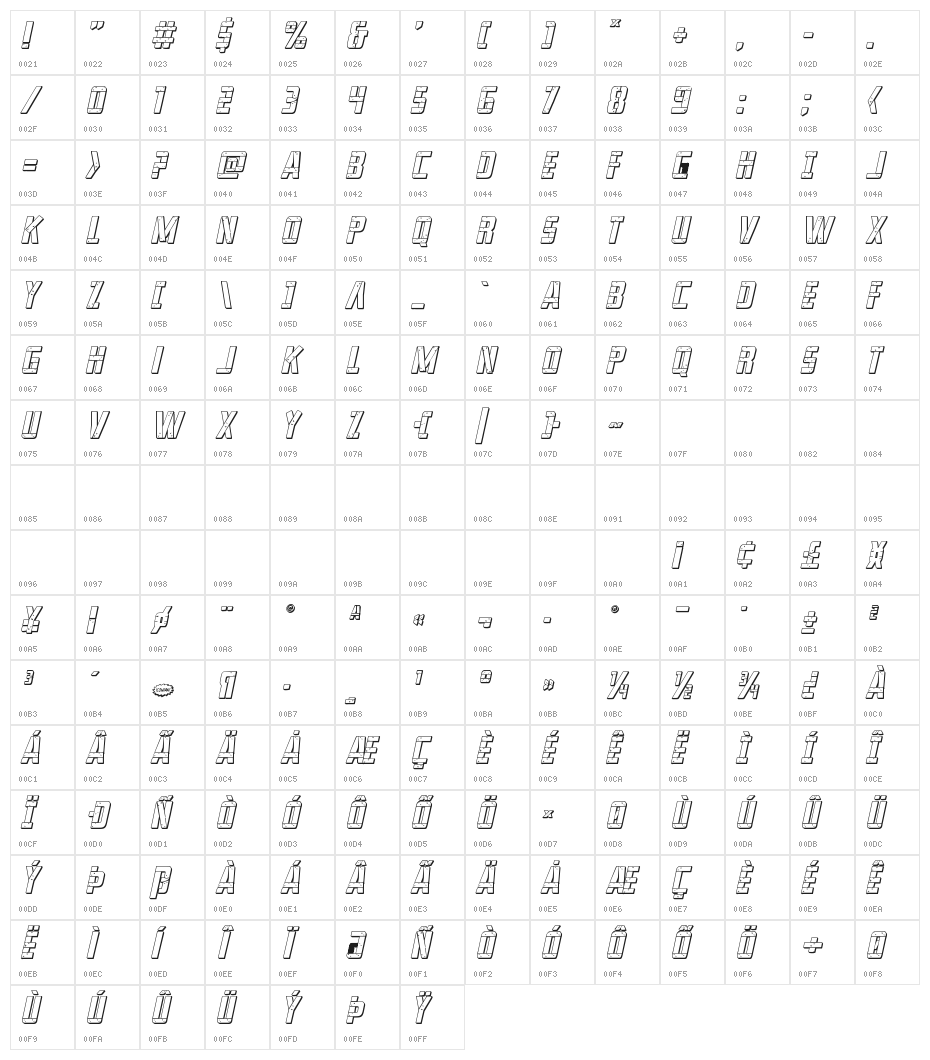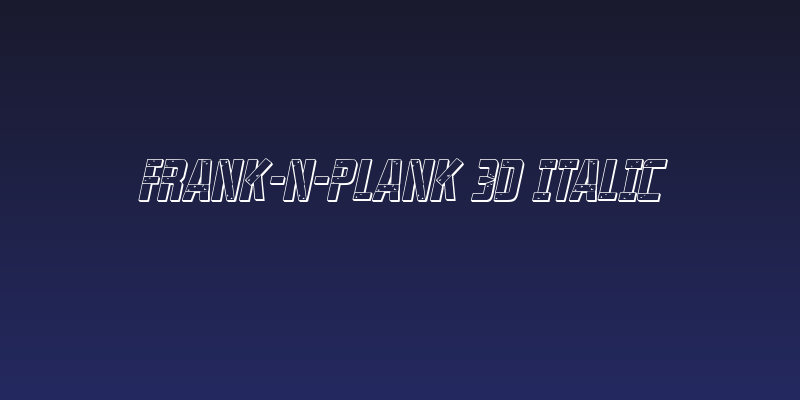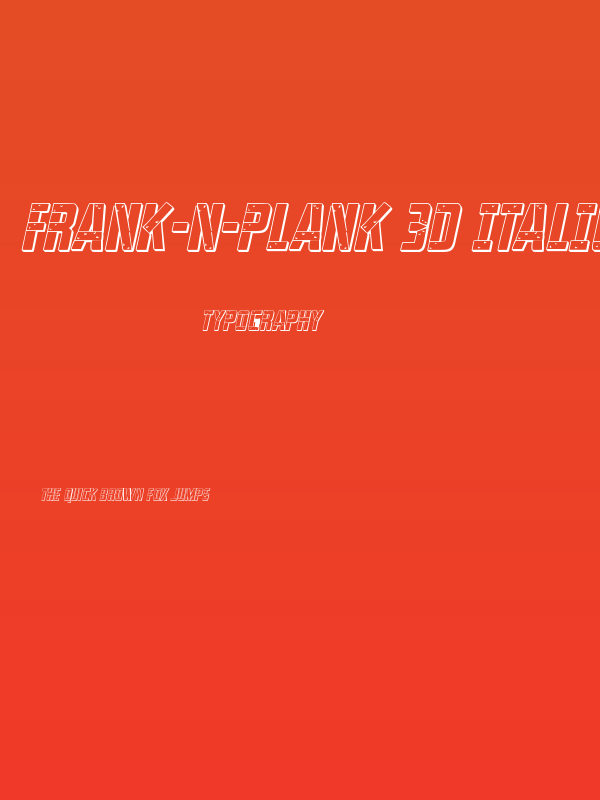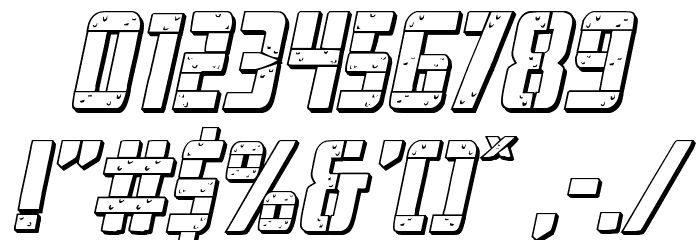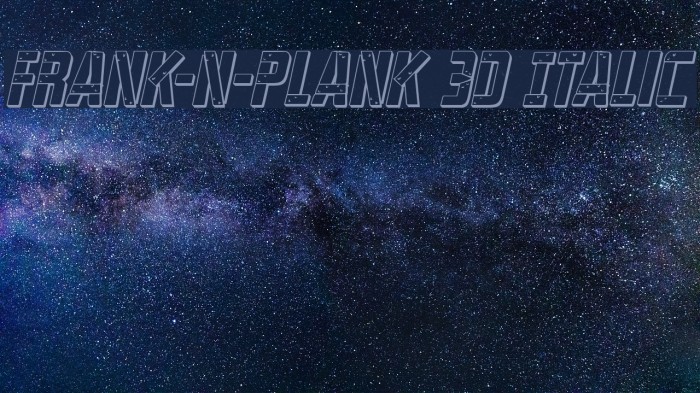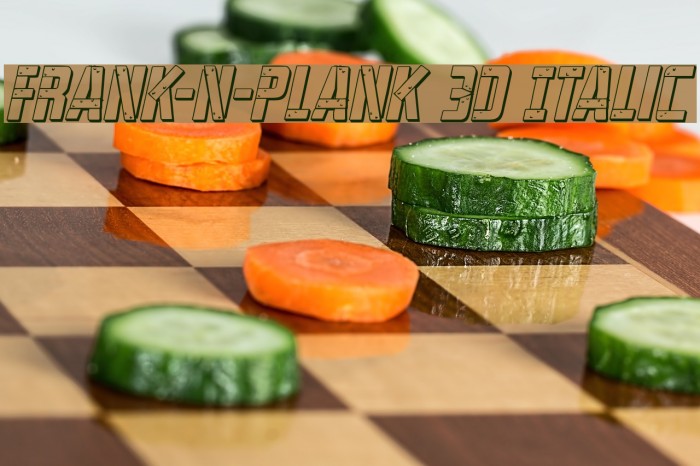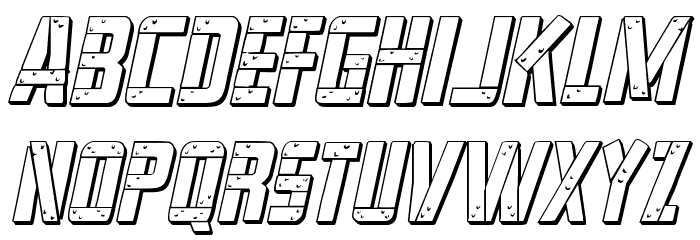
Frank-n-Plank 3D Italic Font
Frank-n-Plank 3D Italic Description
This font features a bold, three-dimensional design with a playful and rugged aesthetic. Each character is outlined with a shadow effect that gives it a 3D appearance, adding depth and dimension. The letters are constructed with a plank-like texture, incorporating small details that mimic wood grain and nails, enhancing its rustic charm. The italic slant adds a dynamic and energetic feel, making it suitable for eye-catching designs. The font maintains consistent spacing and alignment, ensuring readability while retaining its decorative style.
| Proposed Projects | Ideal for projects that require a fun and bold statement, such as posters, video game graphics, children's book covers, or themed event invitations. |